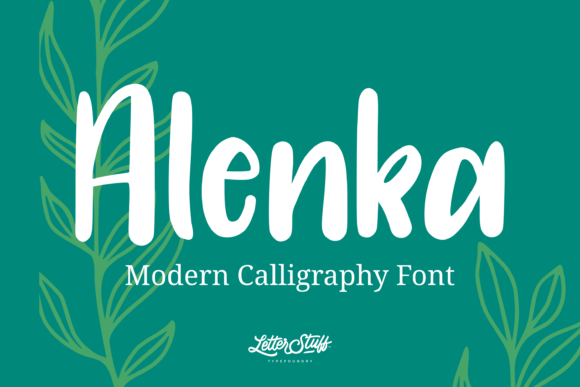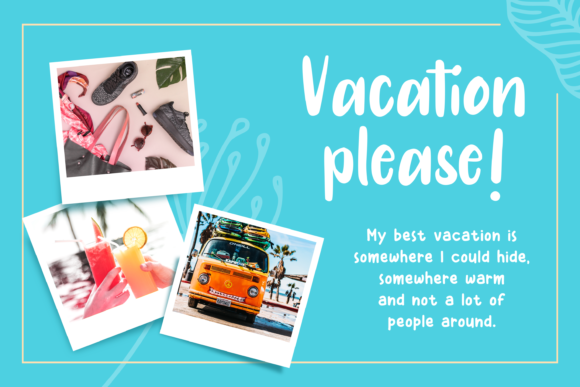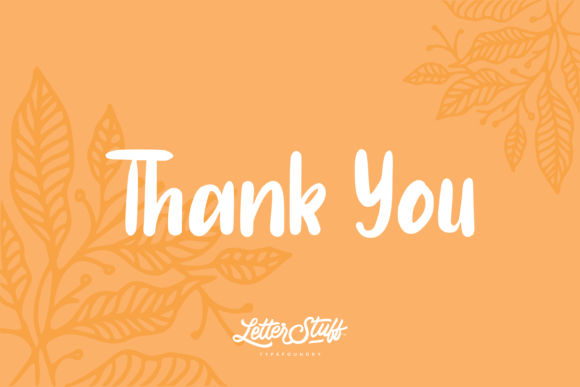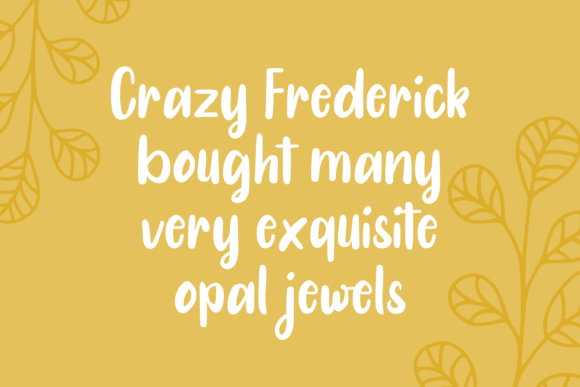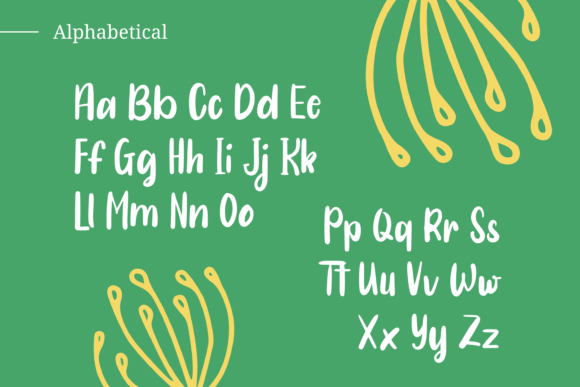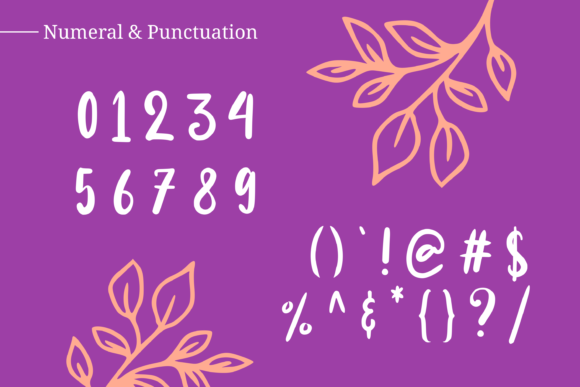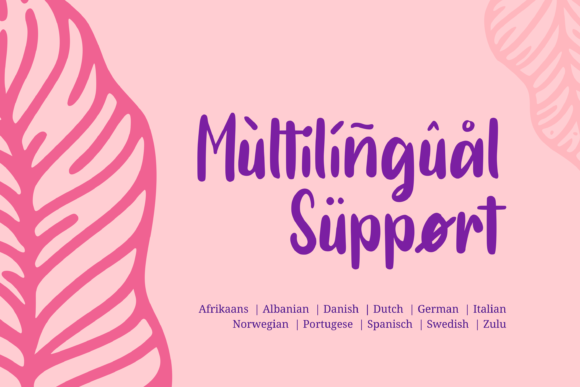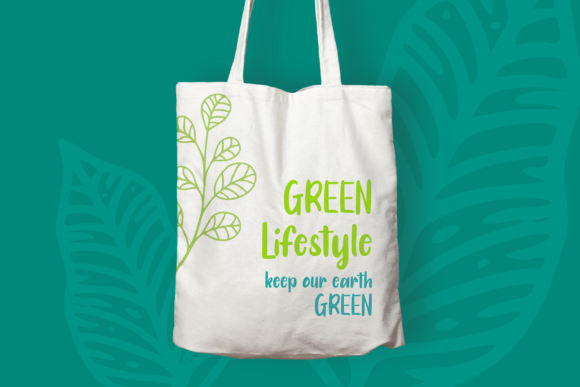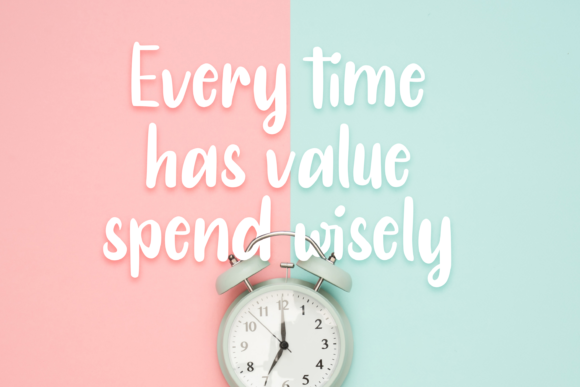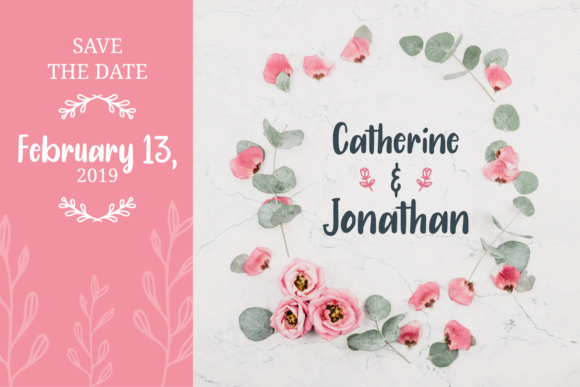
Alenka Font
About Alenka Font
The Alenka is an awesome script font. It was inspired by modern calligraphy typefaces and will add a fun and playful touch to your designs. Its bold letters have a perfect readability and will make any design stand out.
Create eye catching logos, adorable invitations, social media promo images and shareable quotes.